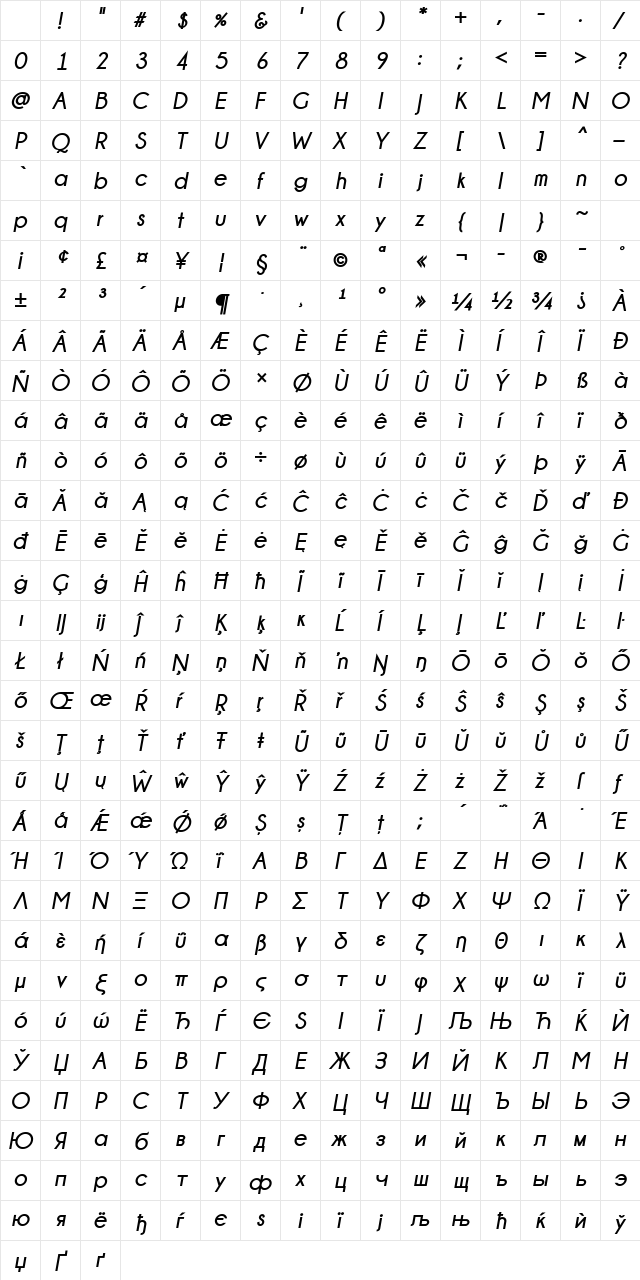
Complete Champagne & Limousines Bold Italic glyph index. Displaying only characters natively supported by Champagne & Limousines Bold Italic font.
Champagne & Limousines is a composed and adaptable typeface that performs quietly and consistently across a wide range of design contexts. The slanted form adds forward momentum and visual energy. Its bold stroke weight gives it real presence on the page.
Pro Tip: Use Champagne & Limousines for emphasis, pull quotes, and subheadings where its slanted energy can add rhythm to the layout.